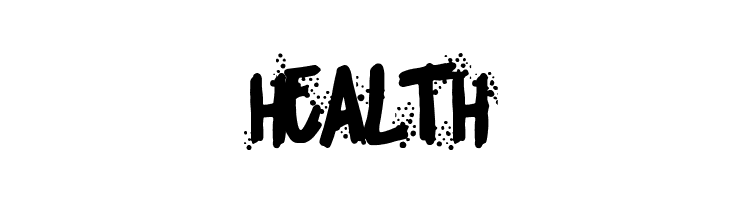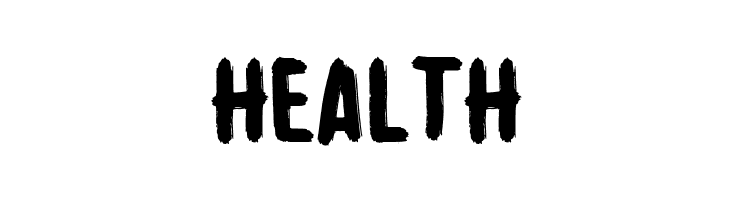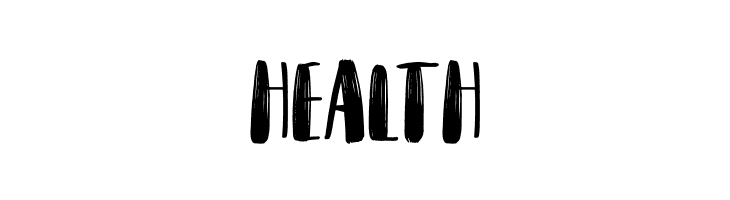
A bold and expressive brush script font with a hand-painted look.
A bold, graffiti-inspired font with a textured, hand-painted look.
A bold, brush-style font with a hand-painted, dynamic appearance.
A bold, hand-painted style font with dynamic, textured strokes.
A bold, distressed font with a vintage, hand-painted look.
A bold, brushstroke-style font with a dynamic, hand-painted appearance.
A bold, brush-style font with a hand-painted, dynamic appearance.
A bold, hand-painted style font with dynamic, brush-like strokes.
A bold, brush-style font with an expressive, hand-painted look.
A bold, hand-painted style font with dynamic, uneven strokes.